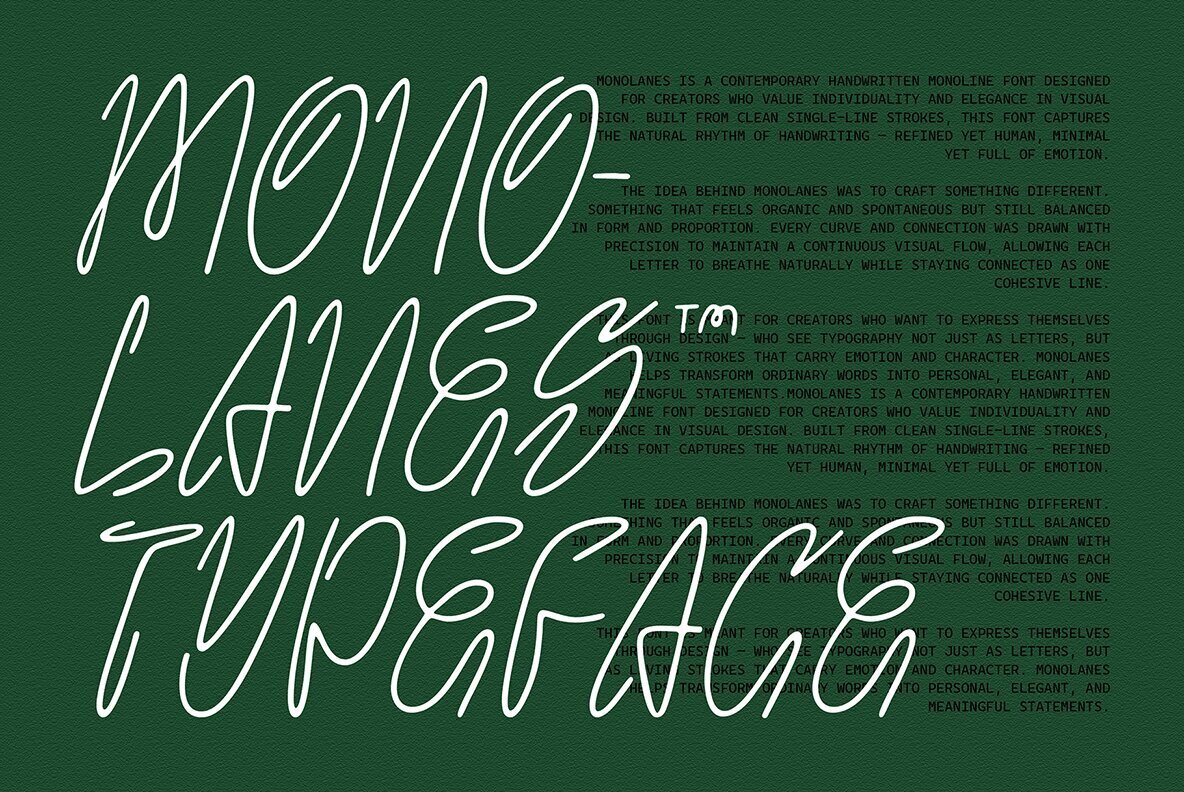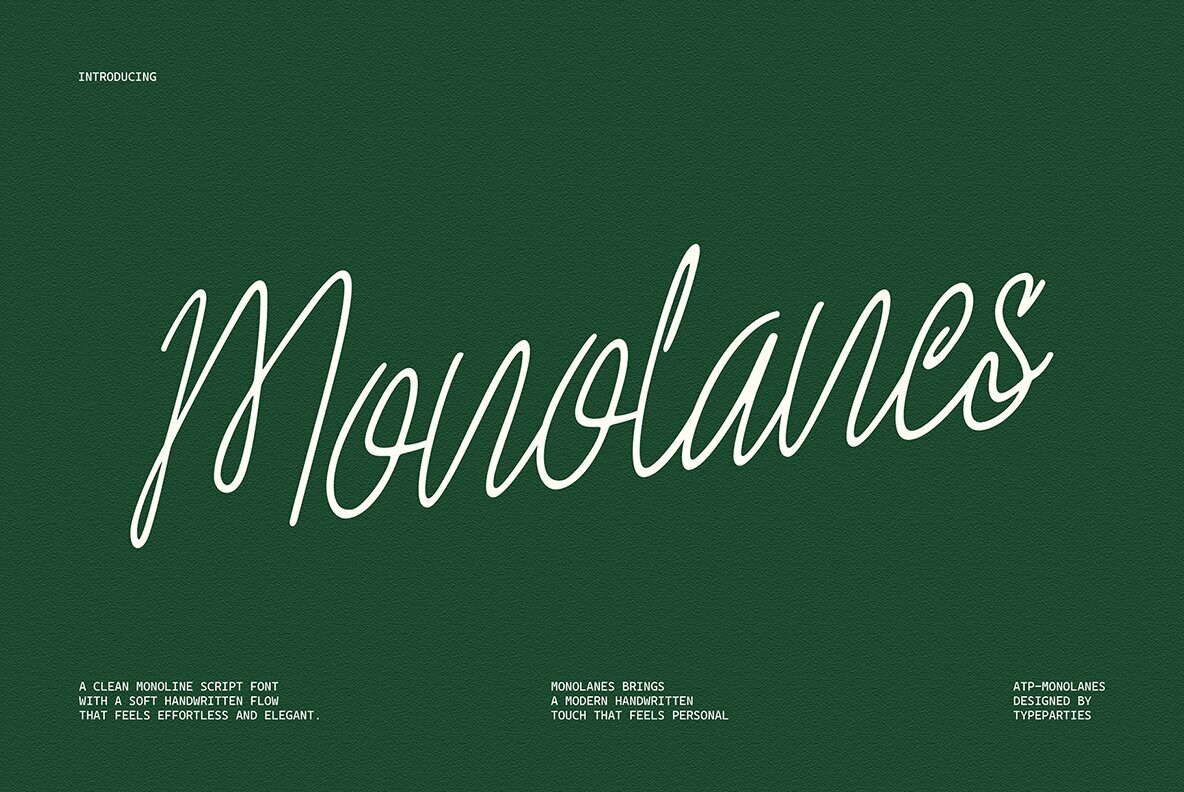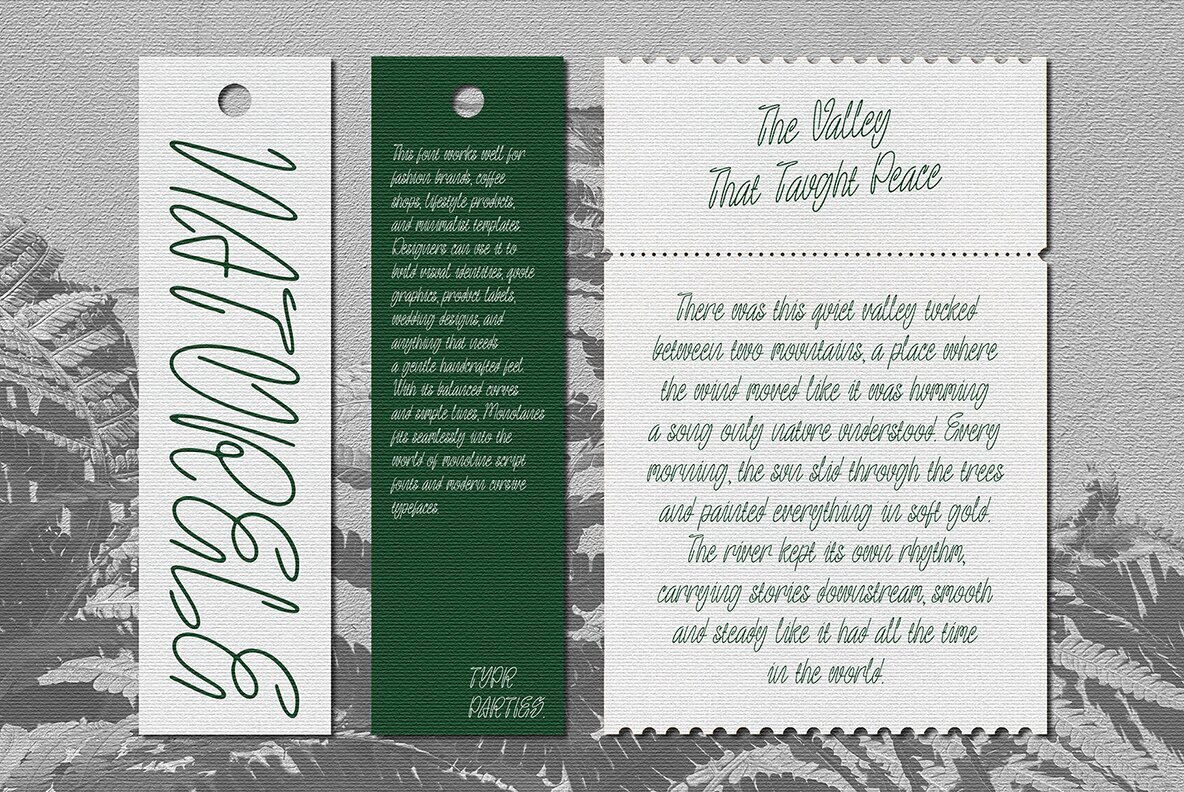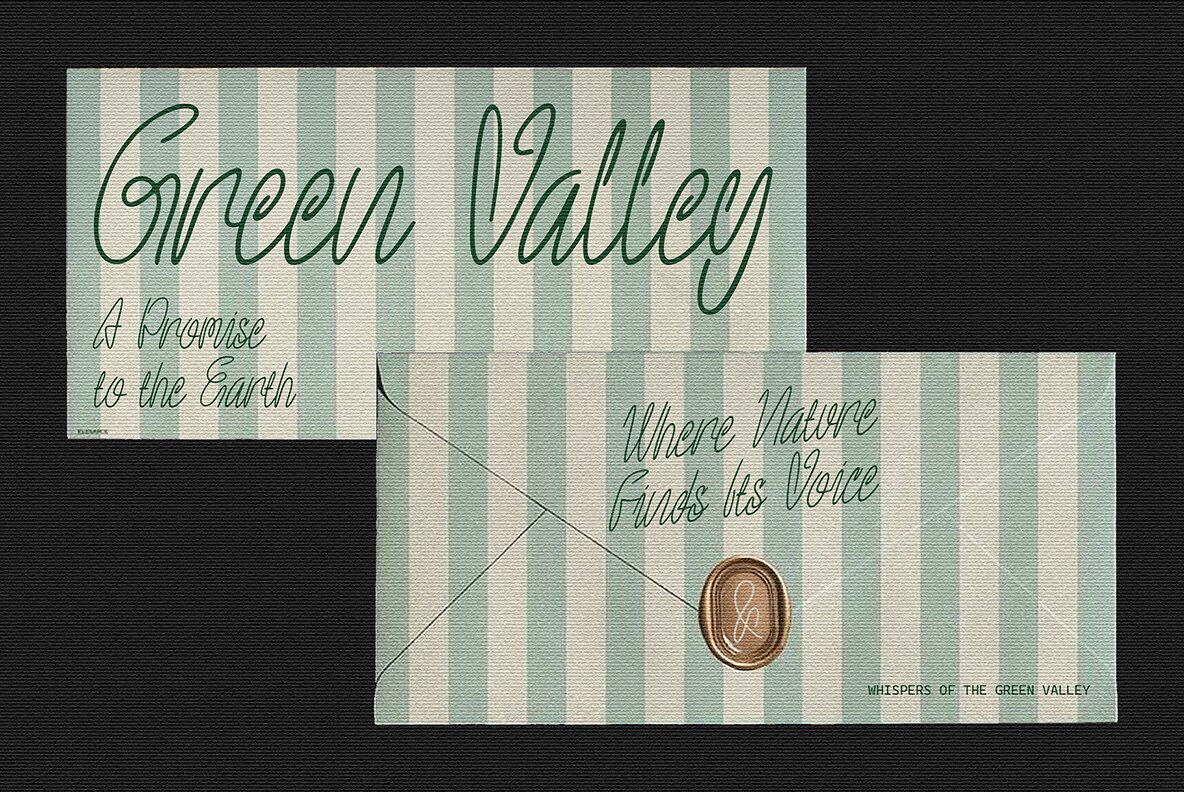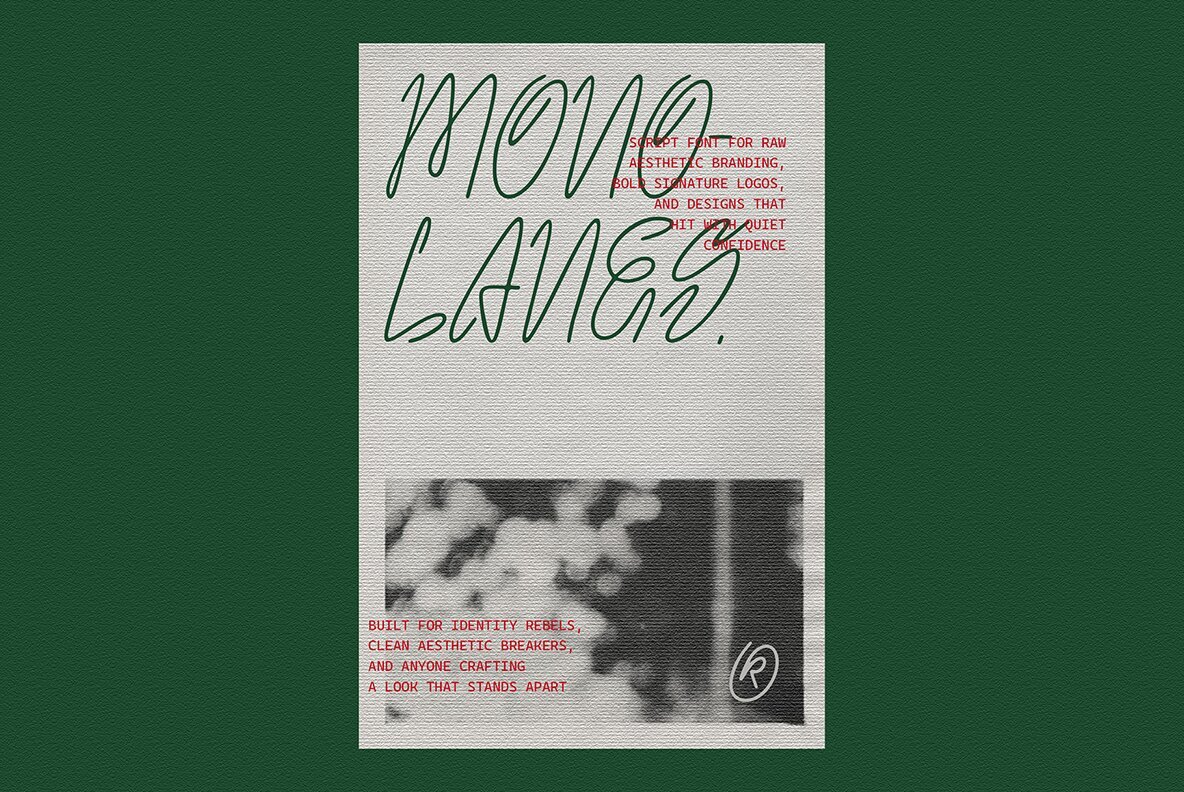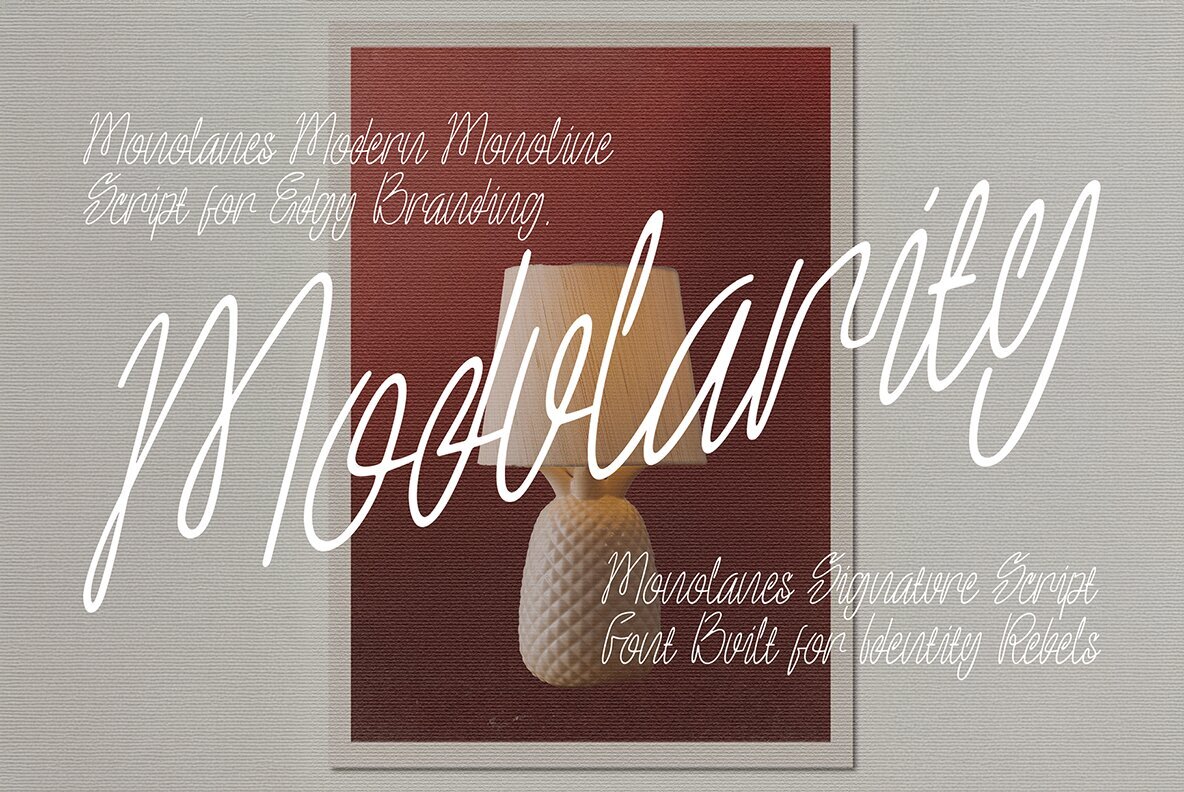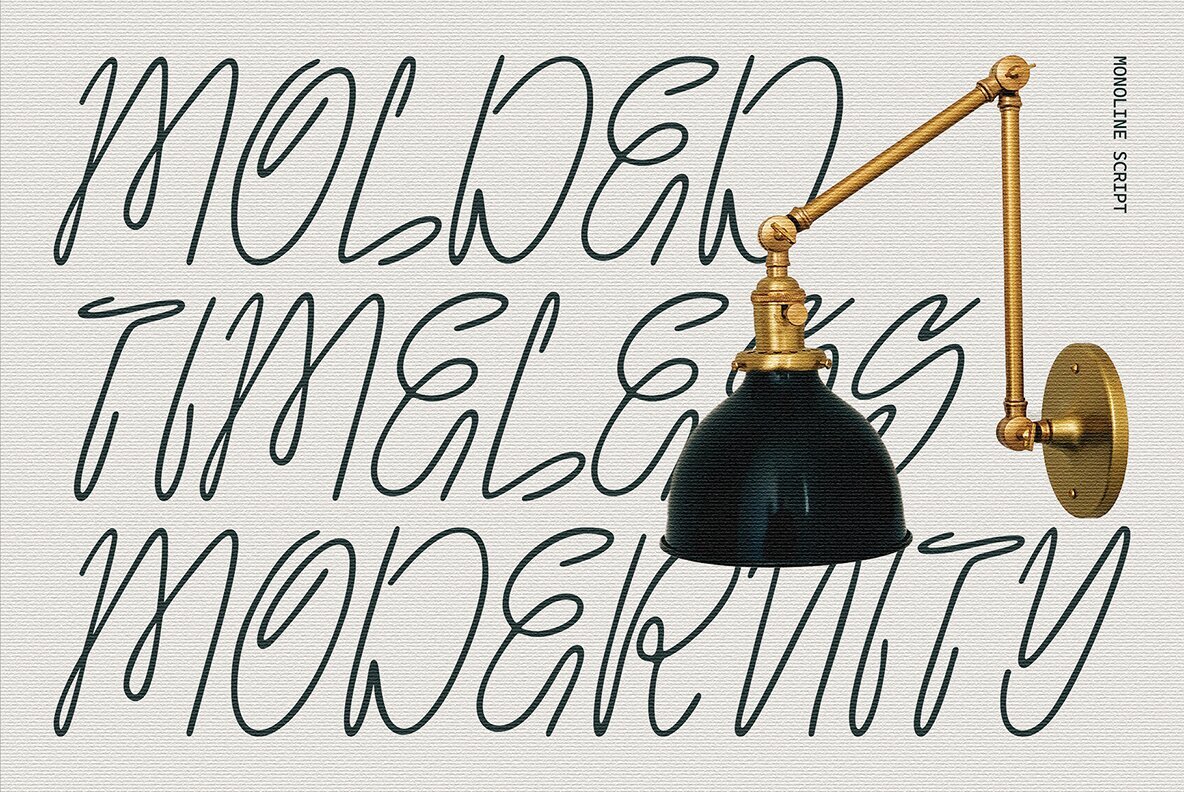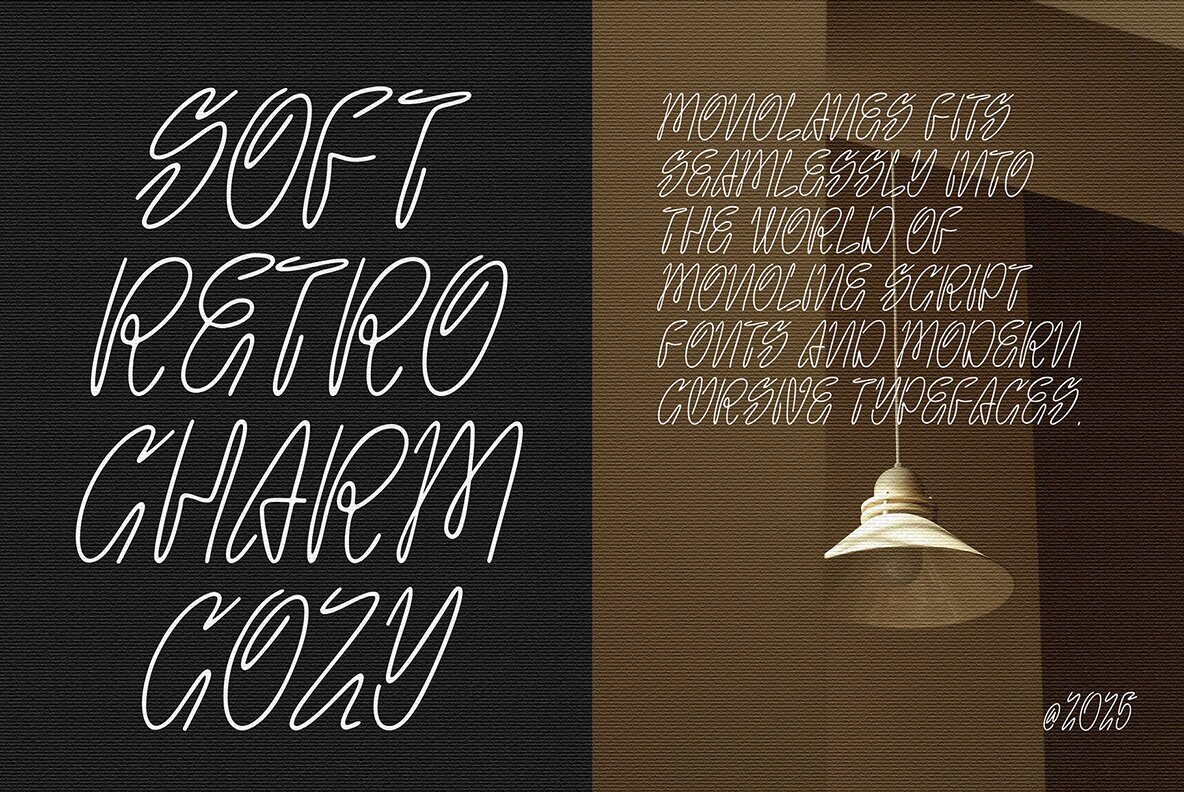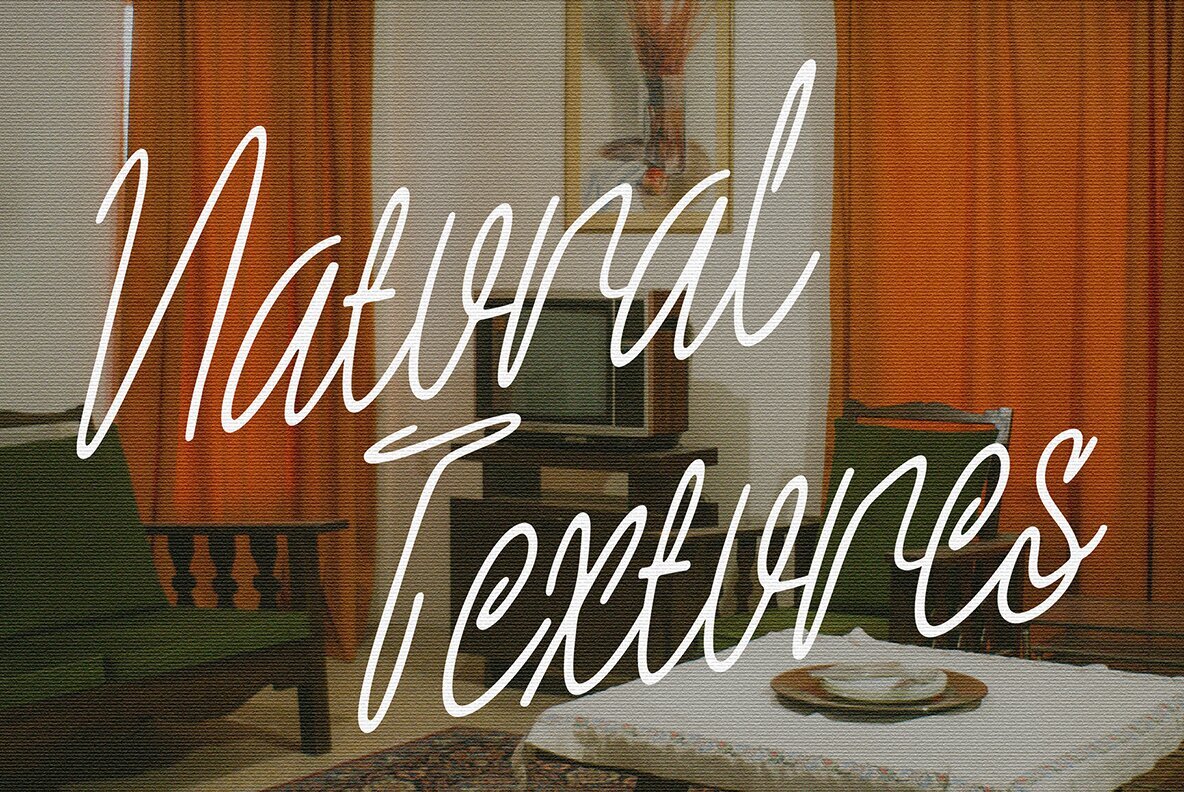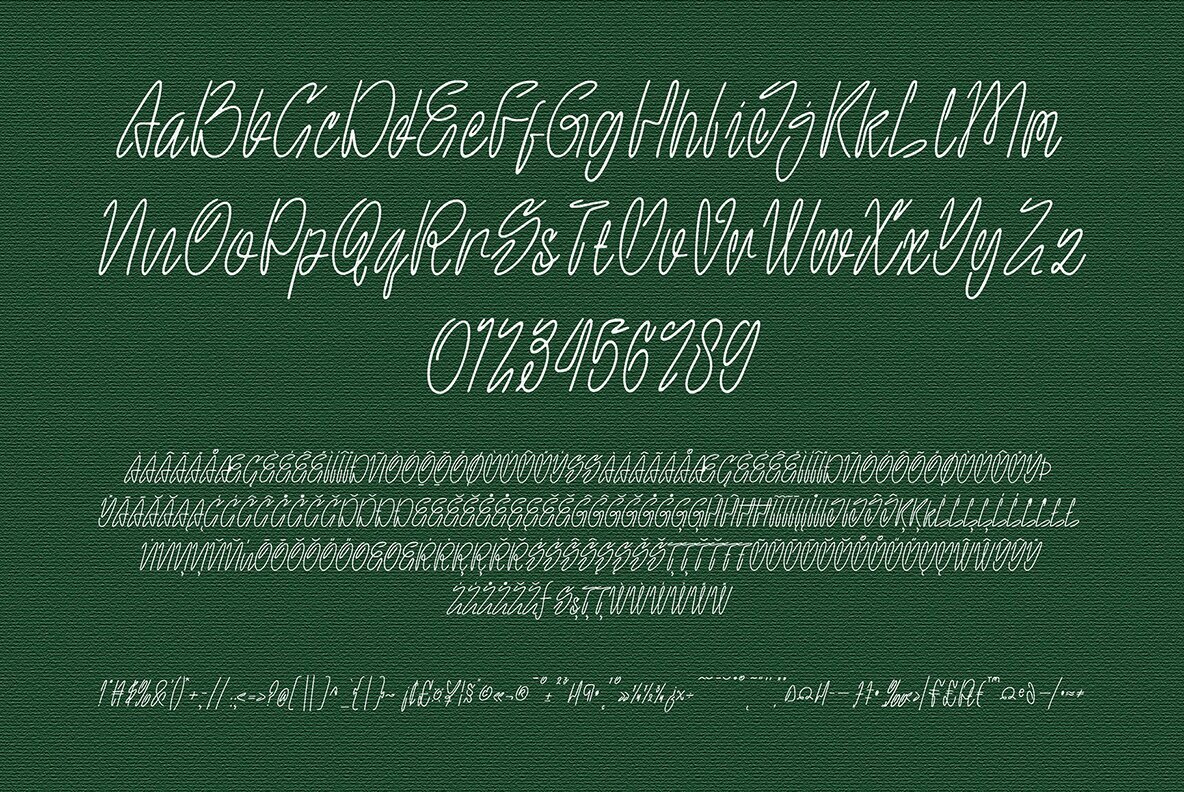
Mono Lanes Font
ATP Mono Lanes Regular
Monolanes stands out as a clean monoline script font defined by its gentle, handwritten rhythm. Its uniform thin strokes trace each letter with clarity, producing a sense of ease and sophistication that appeals to design professionals. The understated elegance makes it especially suited for logo design, branding, signature marks, and product packaging, offering a personal touch that remains polished and easy to read. For those working on sophisticated social media visuals or materials requiring a refined, modern script, Monolanes delivers well-balanced charm without sacrificing legibility.Monolanes: Clean Monoline Script With Effortless Flow